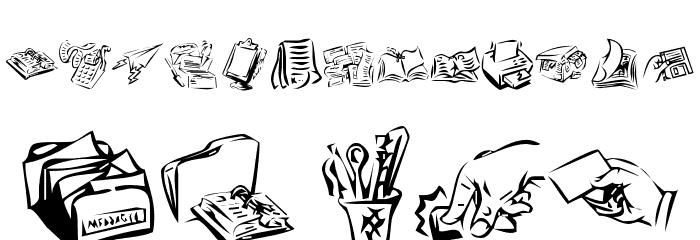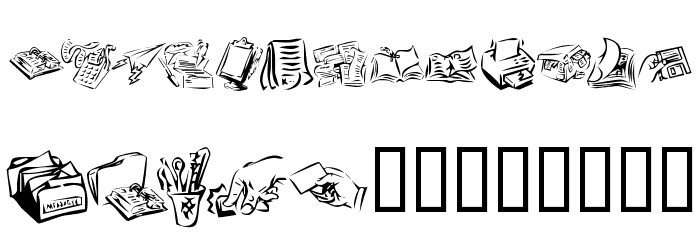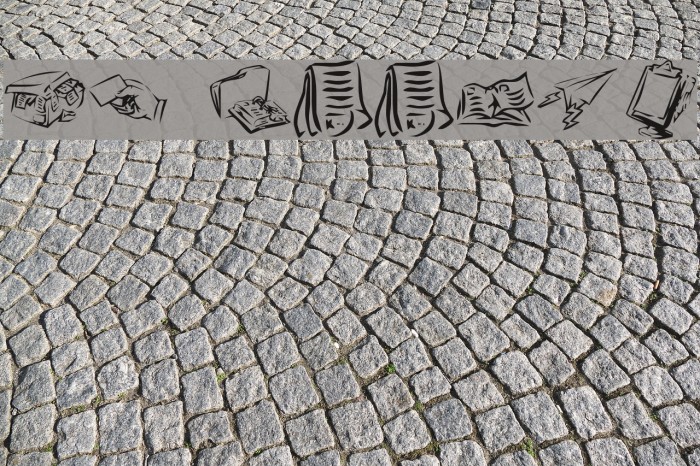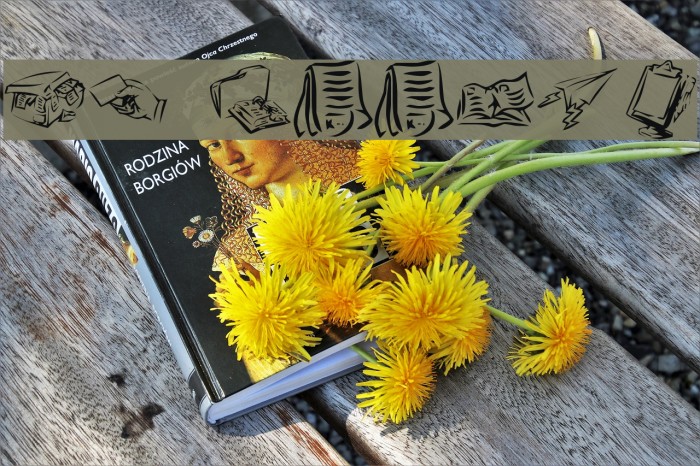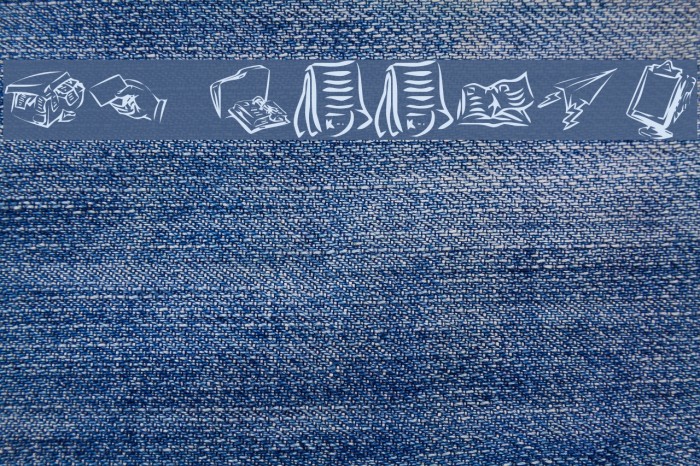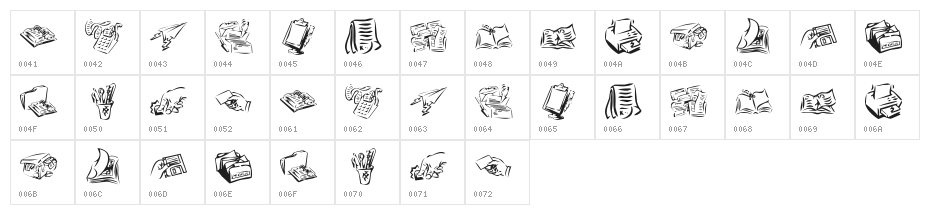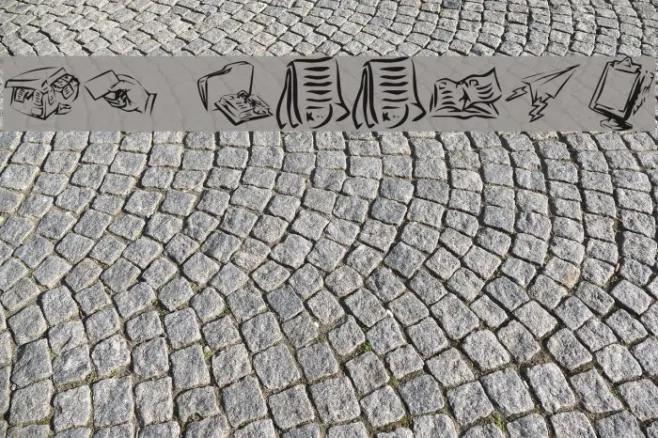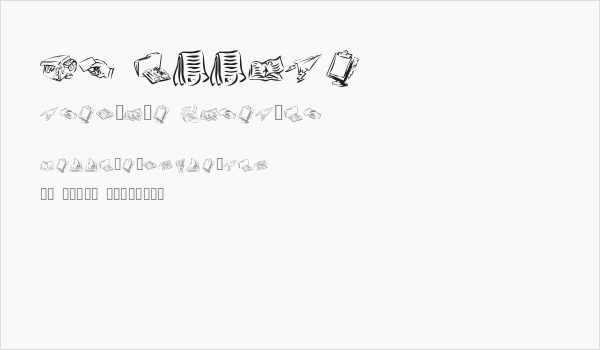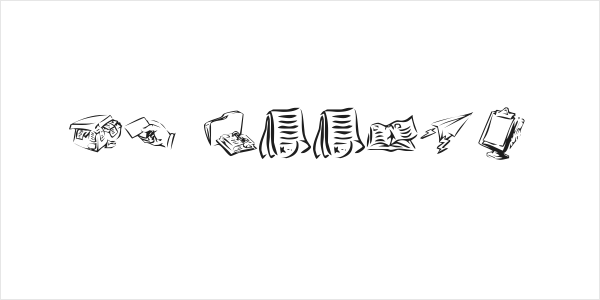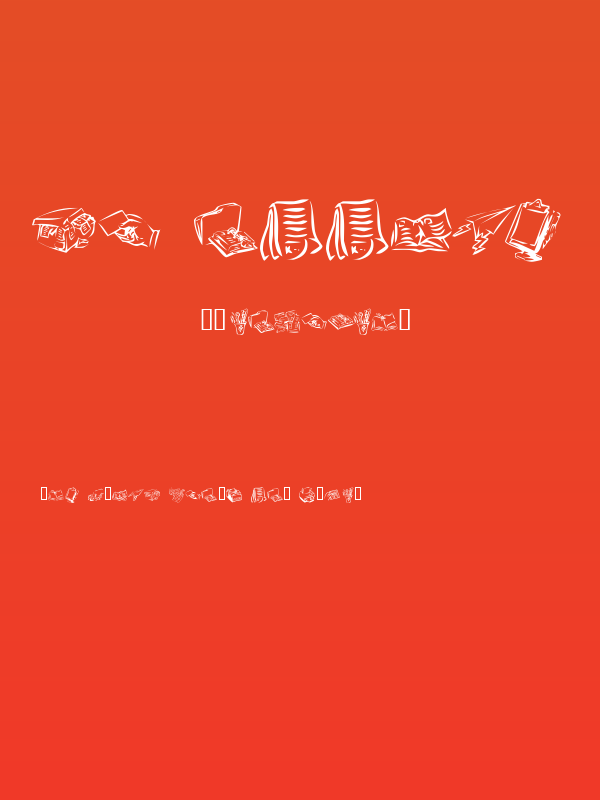
KR Office Font
This is not a traditional font but rather a collection of office-themed icons and illustrations. Each character is represented by a unique graphic depicting various office supplies and activities, such as folders, paper, pens, and hands holding documents. The style is bold and sketch-like, with a hand-drawn appearance that adds a playful and artistic touch. The icons are monochromatic, primarily using black lines with varying thickness to create depth and detail. This set is ideal for projects that require a creative and informal representation of office-related themes.
A collection of office-themed icons with a hand-drawn, sketch-like style.
- Proposed Projects: Ideal for creative presentations, office-themed posters, educational materials, and digital content that requires a playful and artistic touch.
- Use Case: Icons, Illustrations, Thematic Designs